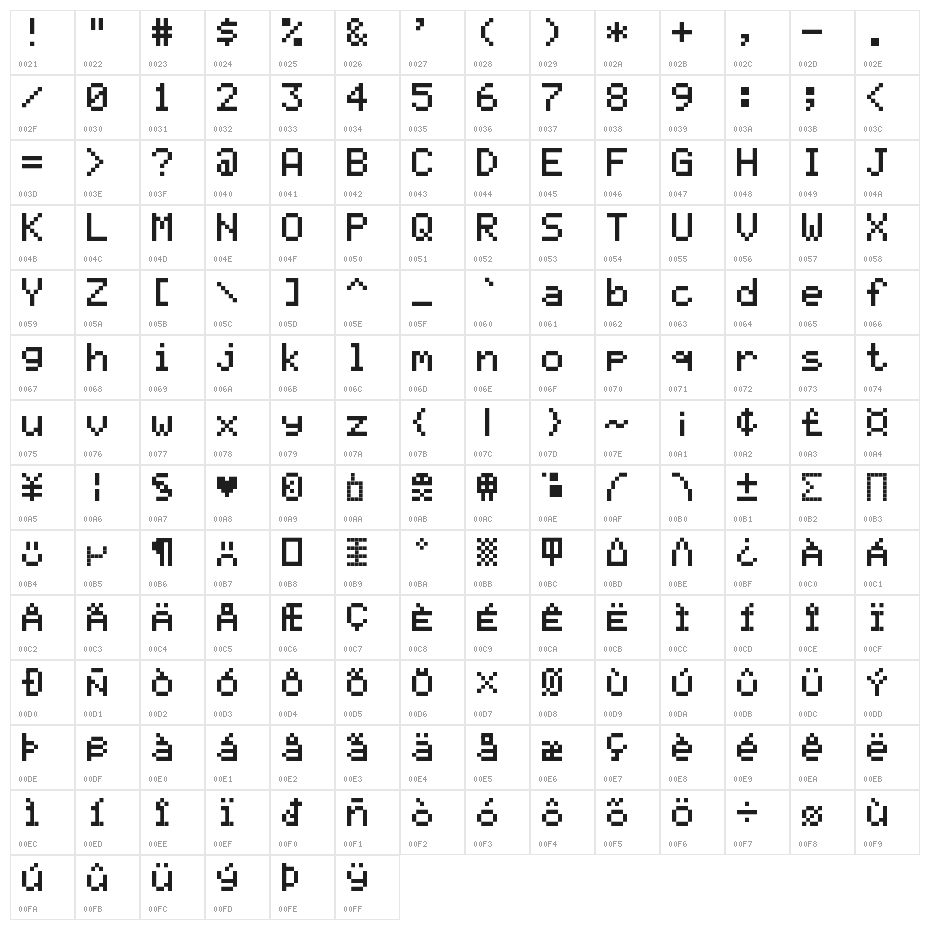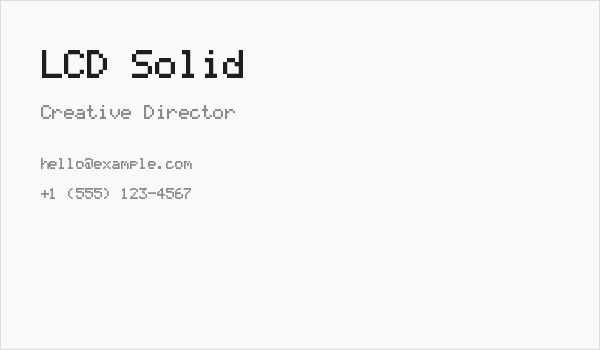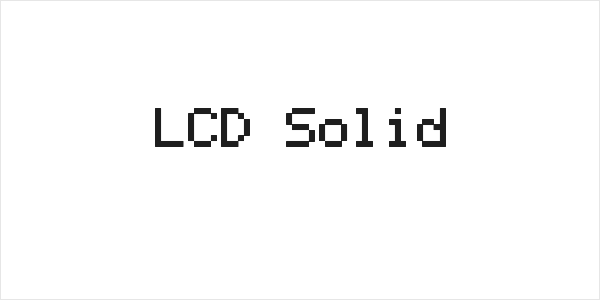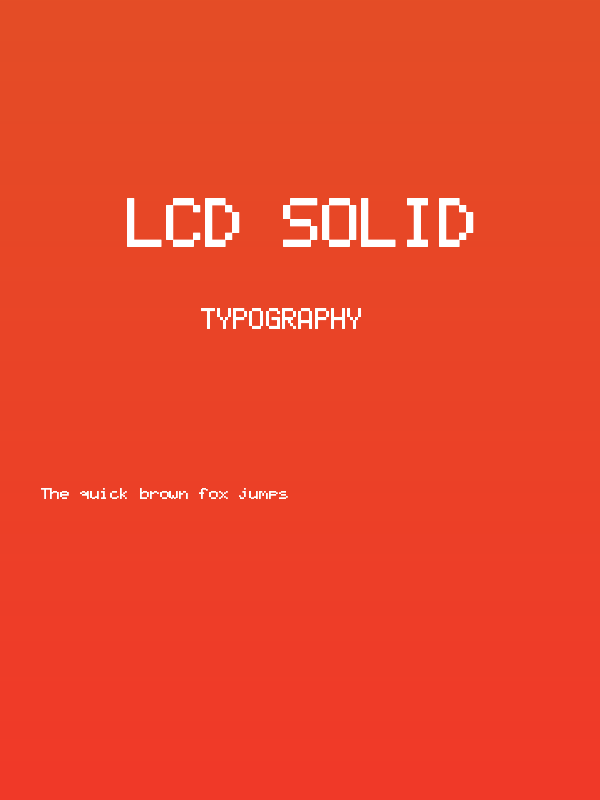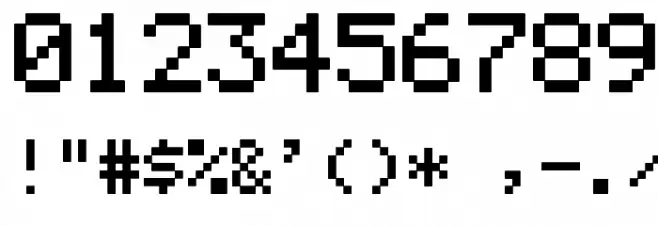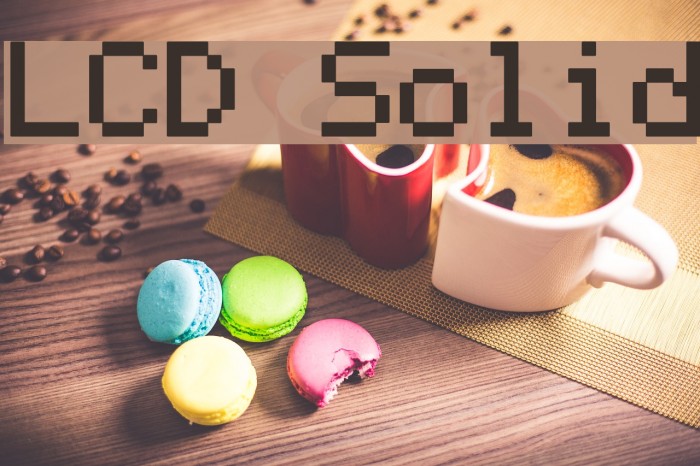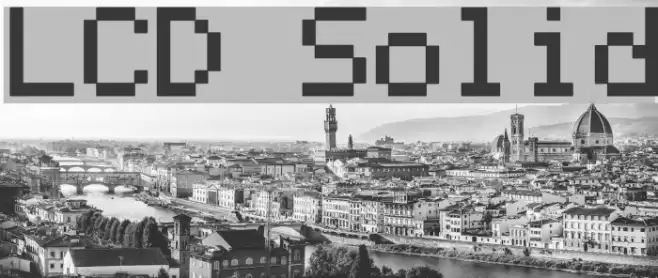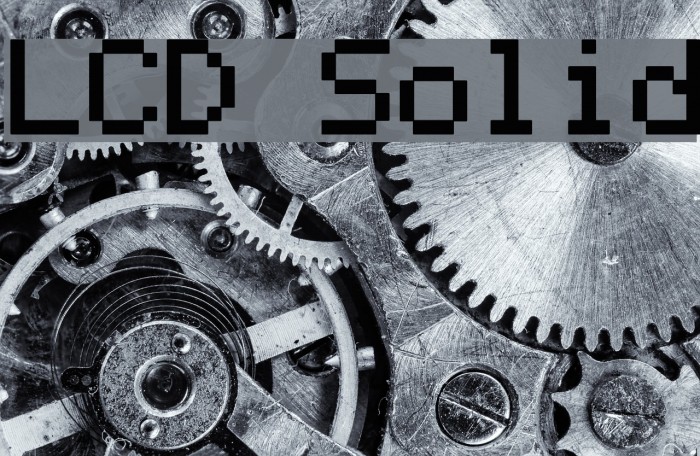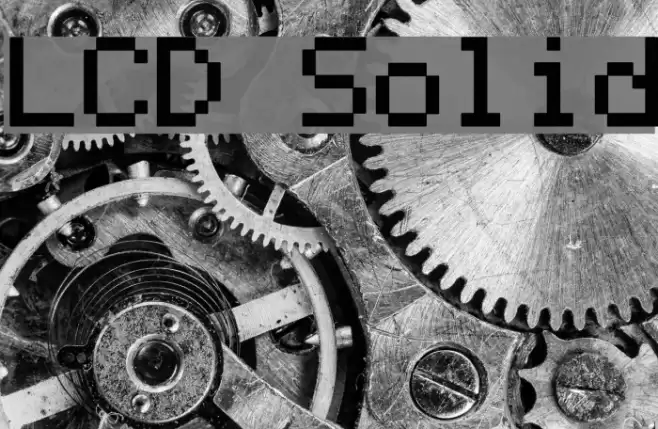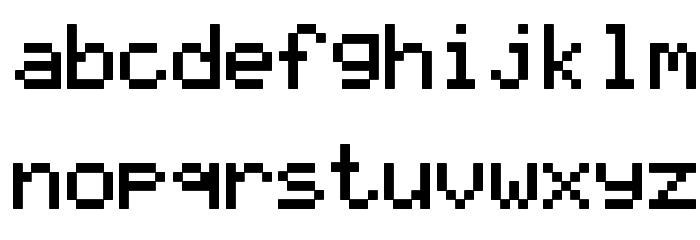
LCD Solid Font
LCD Solid Description
This font features a pixelated, blocky design reminiscent of classic digital displays and retro video games. Each character is constructed with a uniform grid-like pattern, emphasizing a strong geometric structure. The uppercase and lowercase letters maintain a consistent height, contributing to a cohesive and orderly appearance. Numbers and special characters follow the same pixelated style, ensuring a seamless integration across all text elements. The font's simplicity and clarity make it highly legible, even at smaller sizes, while its distinct style evokes a sense of nostalgia and technological charm.
| Overall Style | Retro |
| Use Case | Headlines, Logos, Digital displays |
| Proposed Projects | Ideal for projects that require a retro or digital aesthetic, such as video game graphics, tech-themed posters, or digital art. |